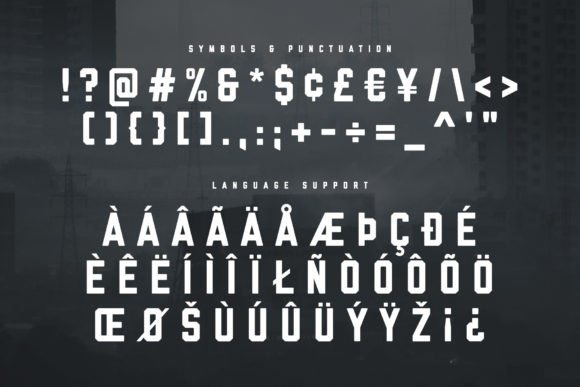
The Unyielding Charm of Grit Font: A Designer’s Best Friend
I still remember the project like it was yesterday. I was tasked with creating a bold, eye-catching poster for a local craft fair, and I was determined to make it stand out. As I scrolled through my font library, I stumbled upon Grit Font, and it was love at first sight! 💡 The strong, determined letterforms instantly resonated with the industrial vibe of the craft fair, and I knew I had found the perfect match.
An Honest Review of Grit Font
- 💥 Big, bold, and condensed letterforms that demand attention
- ✅ Highly readable, even at smaller sizes
- 🎨 Inspired by industrial factory posters from the 1920s era, giving it a unique and authentic feel
- 🤩 OpenType features and glyphs that allow for creative experimentation
While Grit Font is an excellent choice for many projects, it’s not without its limitations. For instance:
- 🤔 It can be a bit overpowering for smaller design elements or body text
- ⚠️ Some users may find the font a tad too condensed for certain applications
A Practical Guide to Using Grit Font
The Backstory of Grit Font
Grit Font was inspired by the industrial factory posters of the 1920s era. The designer, a self-proclaimed font enthusiast, wanted to create a typeface that embodied the strength and determination of that era. After months of research and refinement, Grit Font was born – a bold, condensed typeface that exudes confidence and grit.
| Font Name | Grit Font |
| Author | Aurora Graphics |
Q: What is Grit Font inspired by?
A: Grit Font is inspired by industrial factory posters from the 1920s era.
Q: Is Grit Font suitable for body text?
A: While Grit Font is highly readable, it’s best suited for headlines, titles, or captions. For body text, consider using a font with a more traditional style.